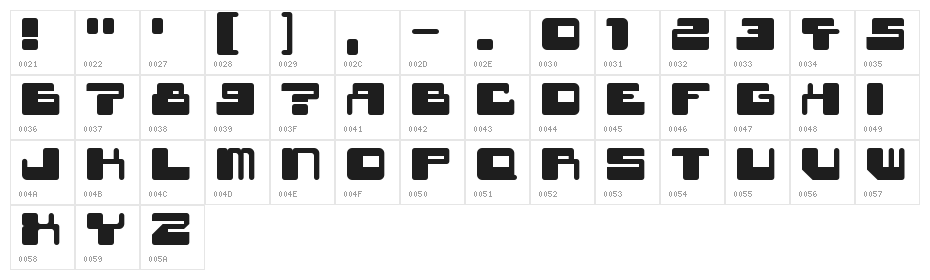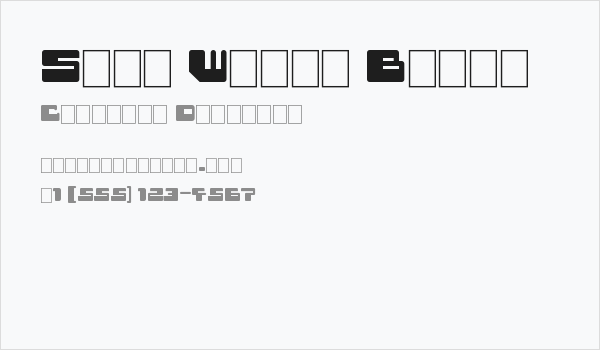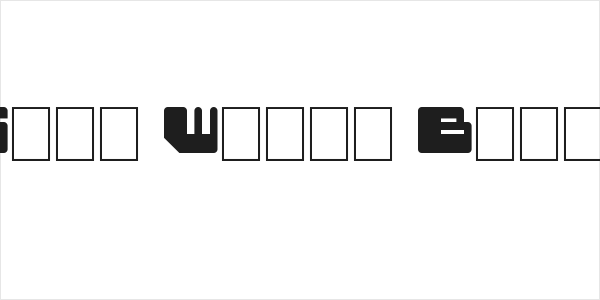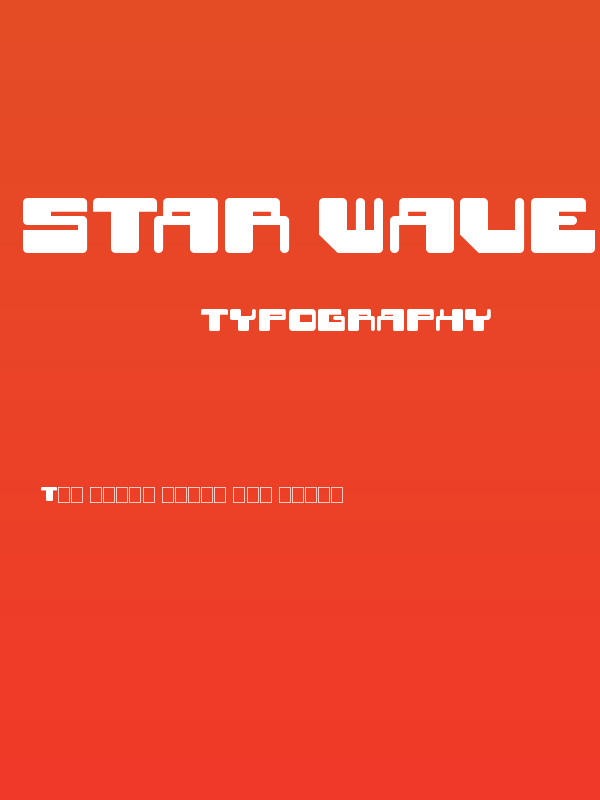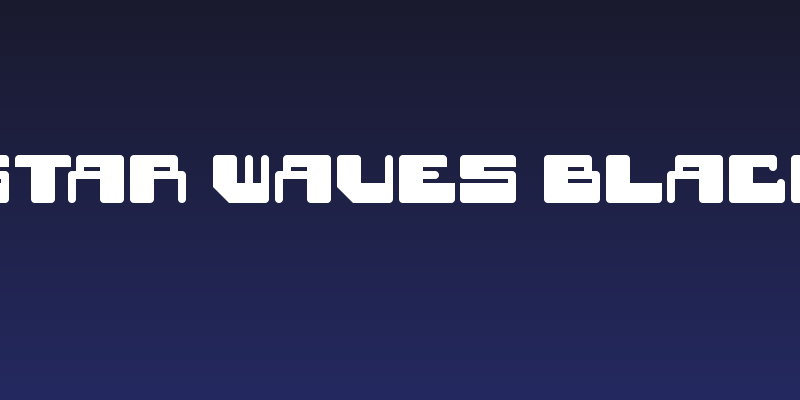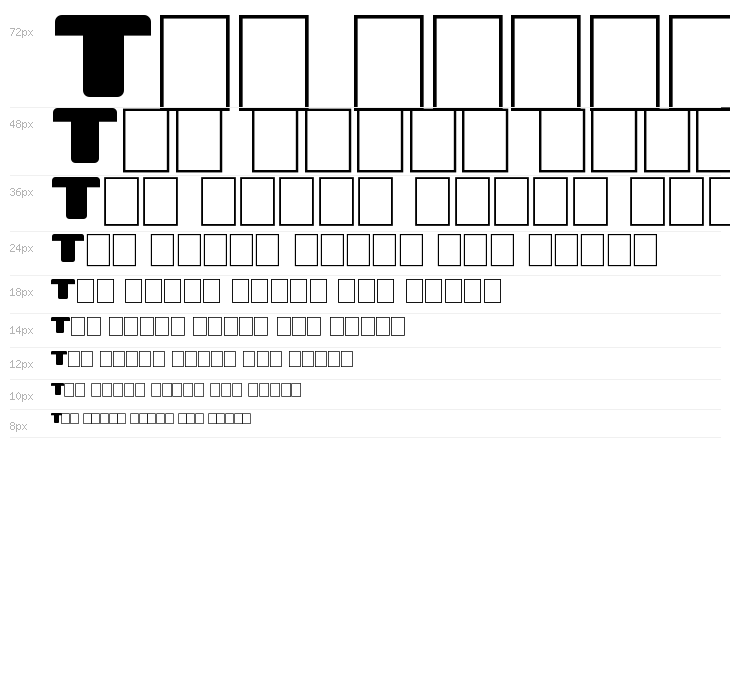
Star Waves Black Font
Star Waves Black Description
This font features a bold, futuristic design with a strong geometric structure. The characters are blocky and wide, with rounded corners that soften the overall appearance. The uppercase letters are uniform in height, creating a cohesive look across the alphabet. The numbers and special characters maintain the same boldness and geometric style, ensuring consistency throughout. This font is ideal for projects that require a modern and impactful visual presence, such as sci-fi themed designs or technology-related branding.